Neoneon Font
Neoneon is a free display typeface font inspired by 80’s style neon signage. It was designed by Bakoom Studio. Neoneon is the first typeface released by Bakoom Studio. With only uppercase, Neoneon could work perfectly on headlines, covers, advertisements and graphic poster designs. If you can add light glow effect on it then it looks stunning on every design.
Koliko font
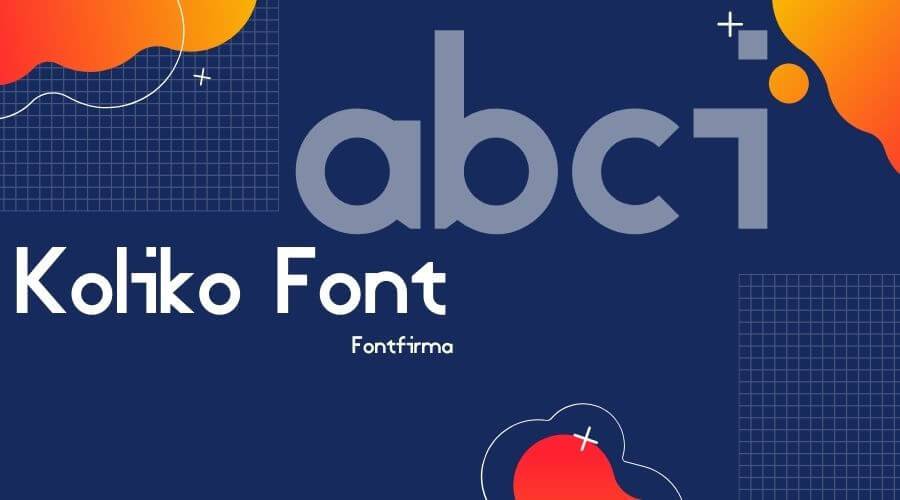
Koliko is a geometric sans serif with plain curves and a clean, functional structure designed by Alex Frukta. This square based font published through Fontfirma. Font family consists of 3 unique font styles — regular, thin and bold. Koliko is licensed under open font licensed. This amazing font most suitable for headlines of all sizes, but it does work well in a variety of text lengths.
Blanka Font
Blanka is a futuristic and minimalist font designed by Emmeran Richard. Made as a free download, the font can be used for both personal and commercial projects. This font is very much perfect for any kind of designing work. It is ideal for huge things! Use it for titles, logos, monograms to beautify your modern visuals.
Higher Font
Higher is a free font made for a student project containing characters (A-Z) and numbers (0-9). This Free Font is designed and shared by Marisa Passos, a designers from Braga, Portugal. Higher is a sans-serif font, font combined with retro make up a perfect typeface, with high penetration impressive figure. You can use it for multiple design projects. Higher Font is free for personal use and commercial use.
Evilborn Font
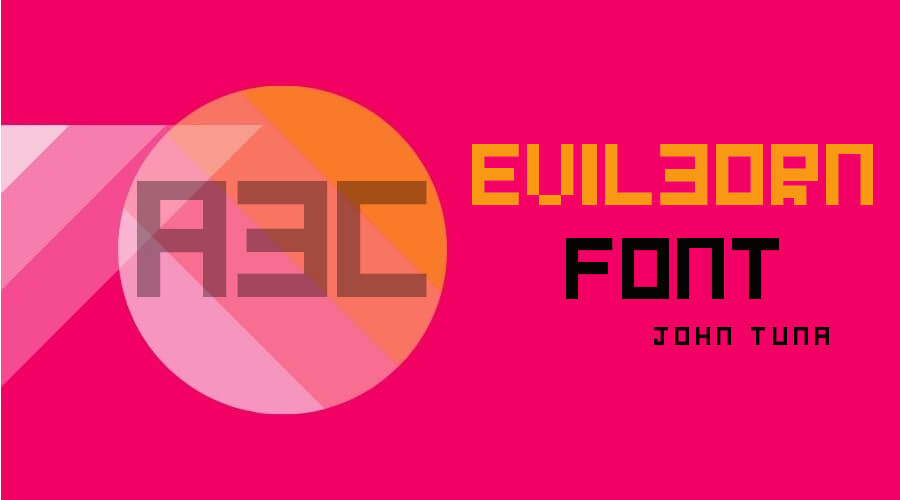
Evilborn Font is a square-based font designed by John Lang Tuna. This is a free font. But you can Donate John. email: . With only uppercase, Evilborn font is perfect for headline.